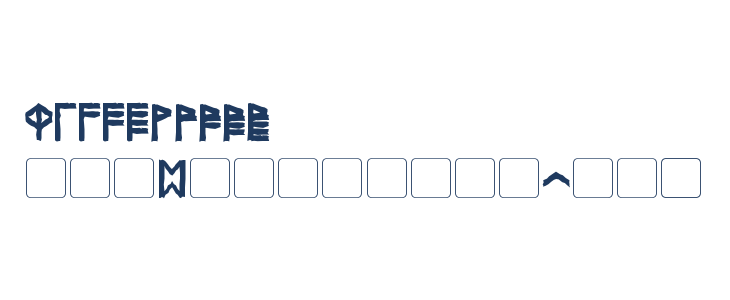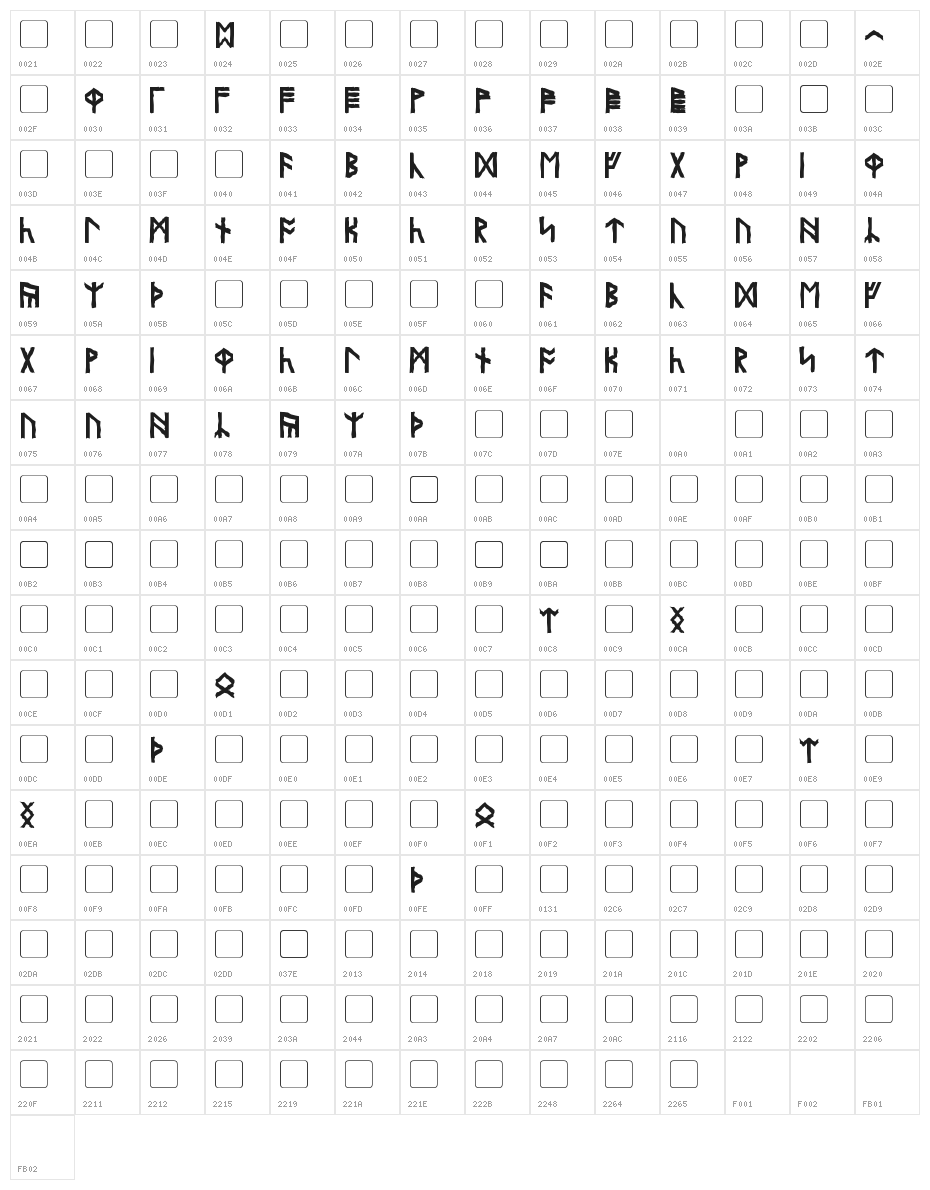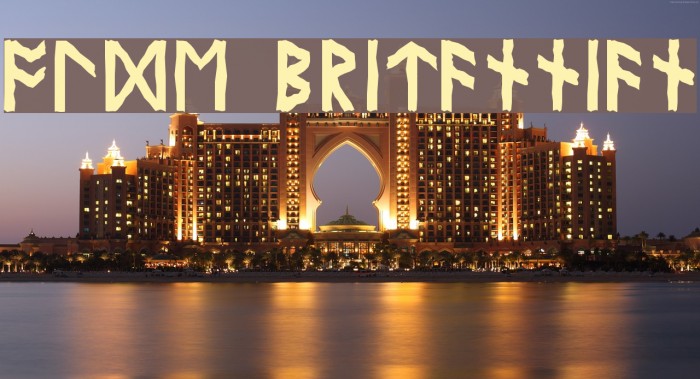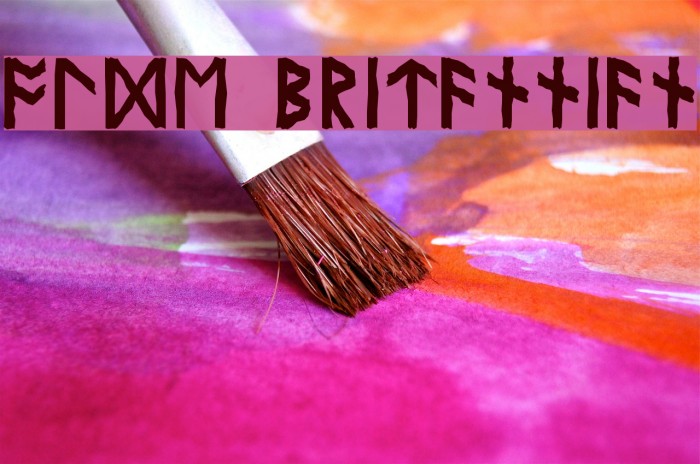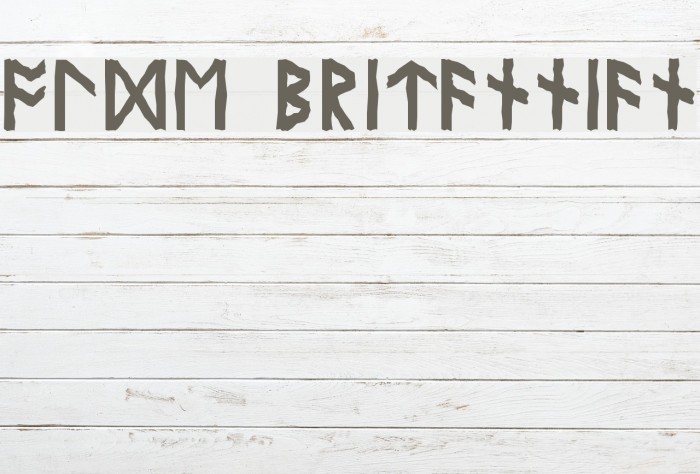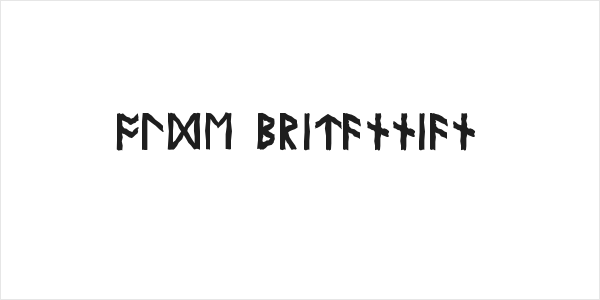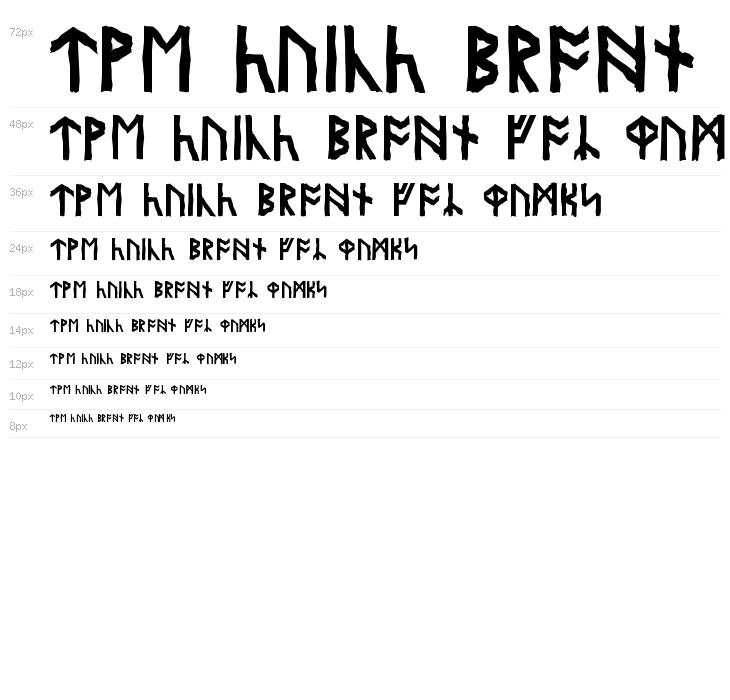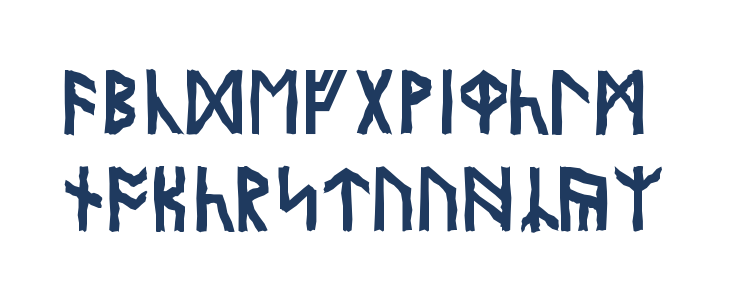
Olde Britannian Font
Olde Britannian Description
This font features a bold, angular design reminiscent of ancient runic alphabets. Its characters are sharply defined with a rugged, hand-carved appearance, evoking a sense of historical depth and mystery. The strokes are uneven, giving it a raw and organic feel, while maintaining a consistent weight throughout. This style is particularly striking and would stand out in any design project that aims to convey a sense of antiquity or folklore. The font's unique character shapes make it ideal for thematic projects that require a touch of the past.
| Use Case | Logos, Headlines, Thematic designs |
| Proposed Projects | Ideal for historical or fantasy-themed designs, book covers, movie posters, or video game graphics. |